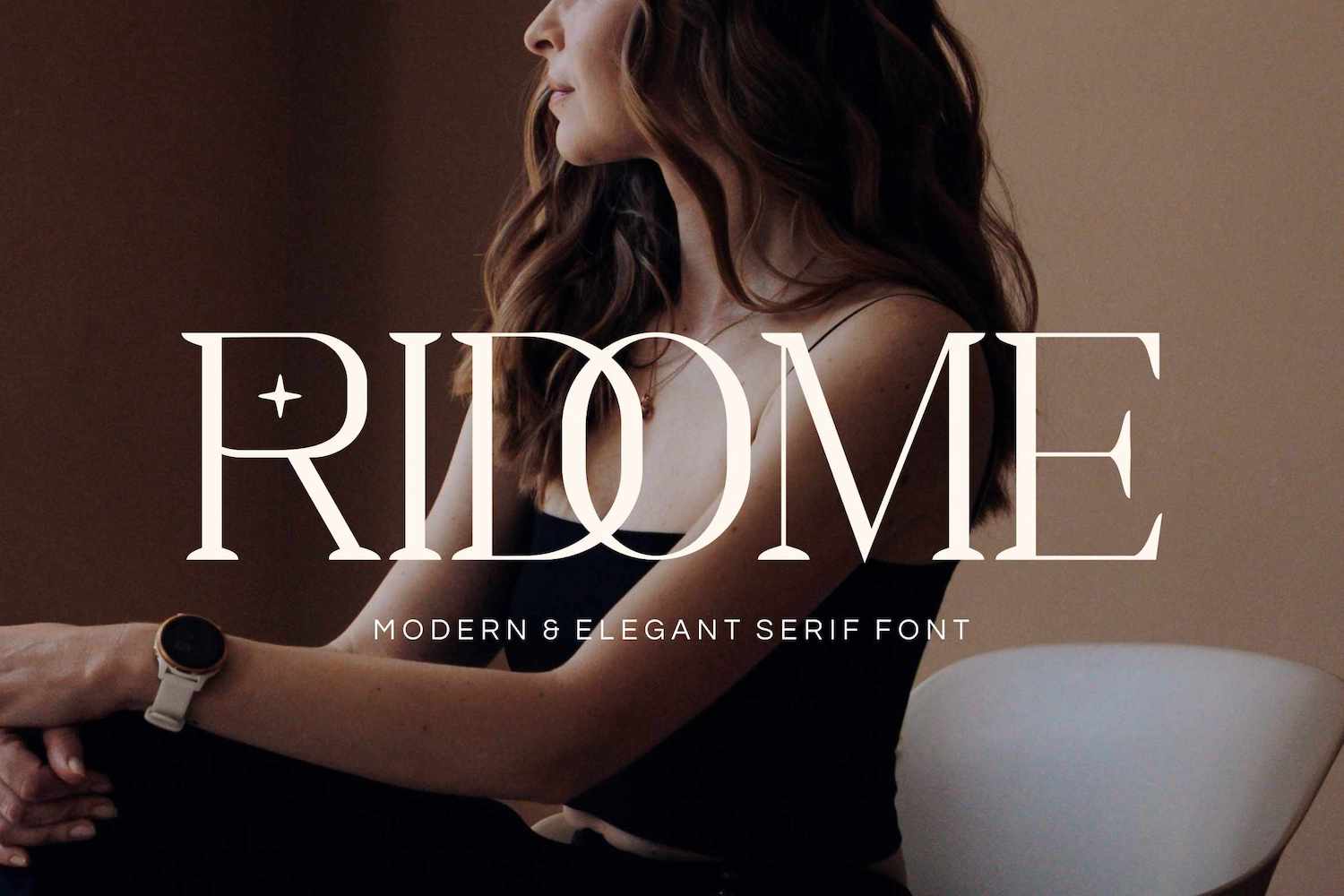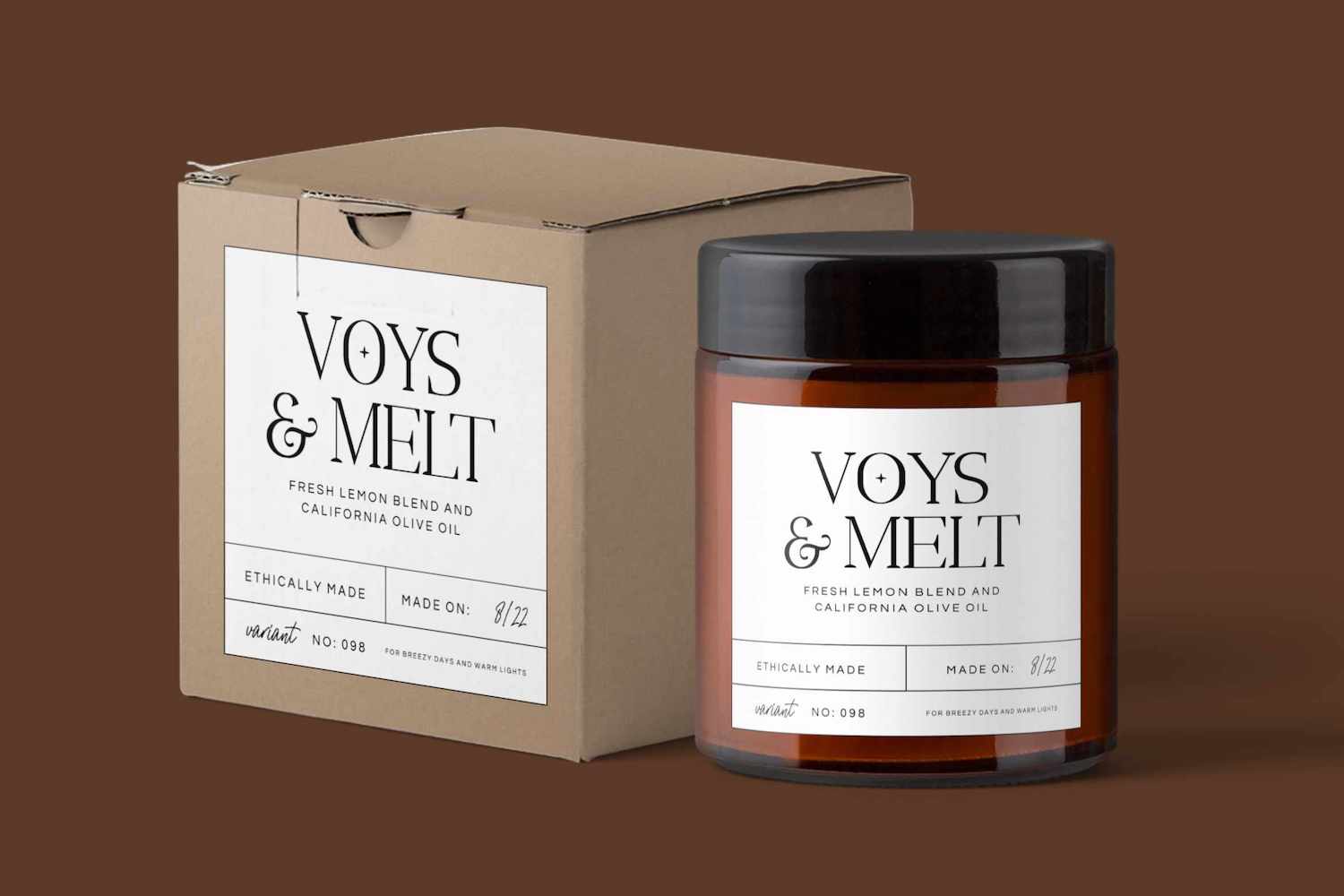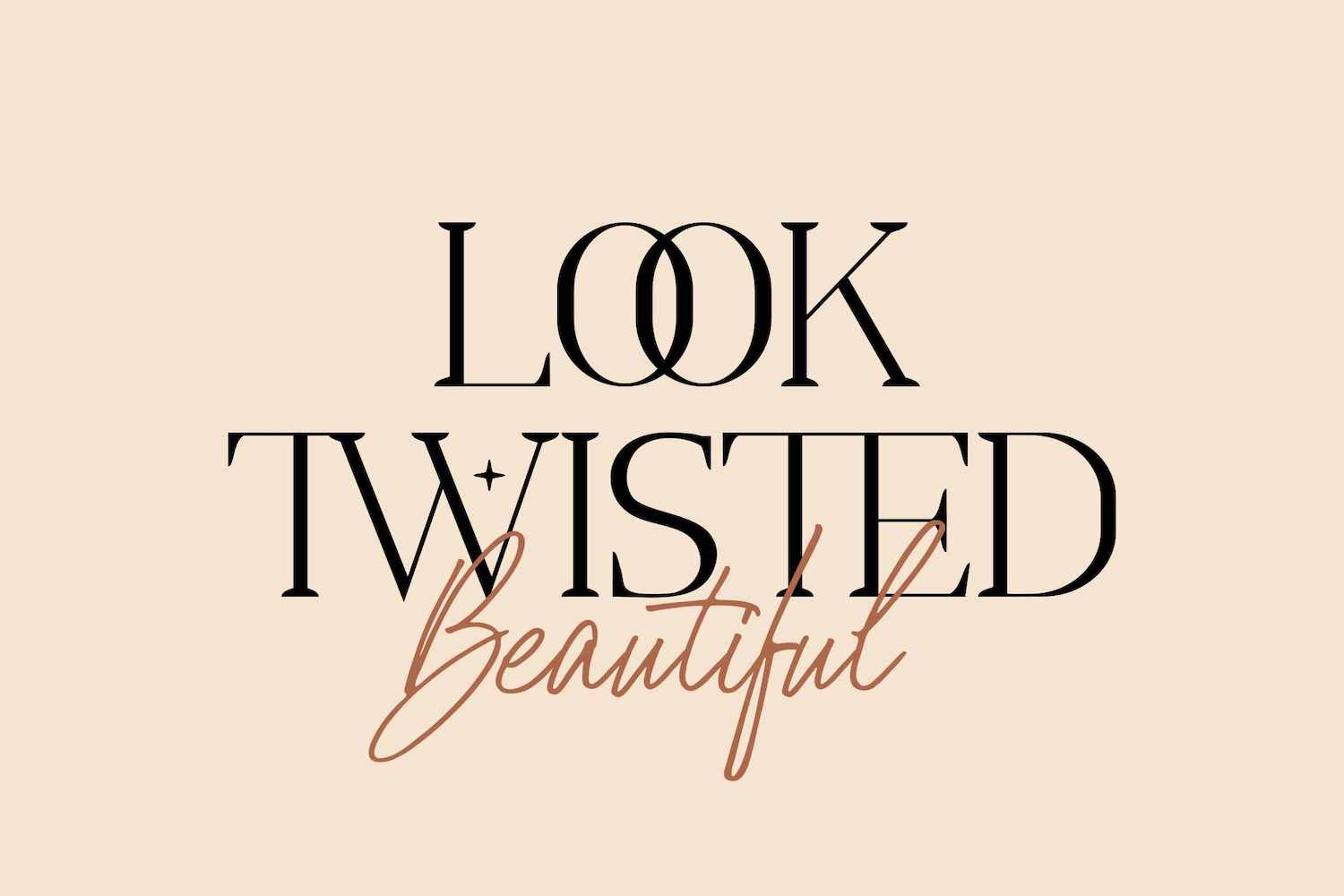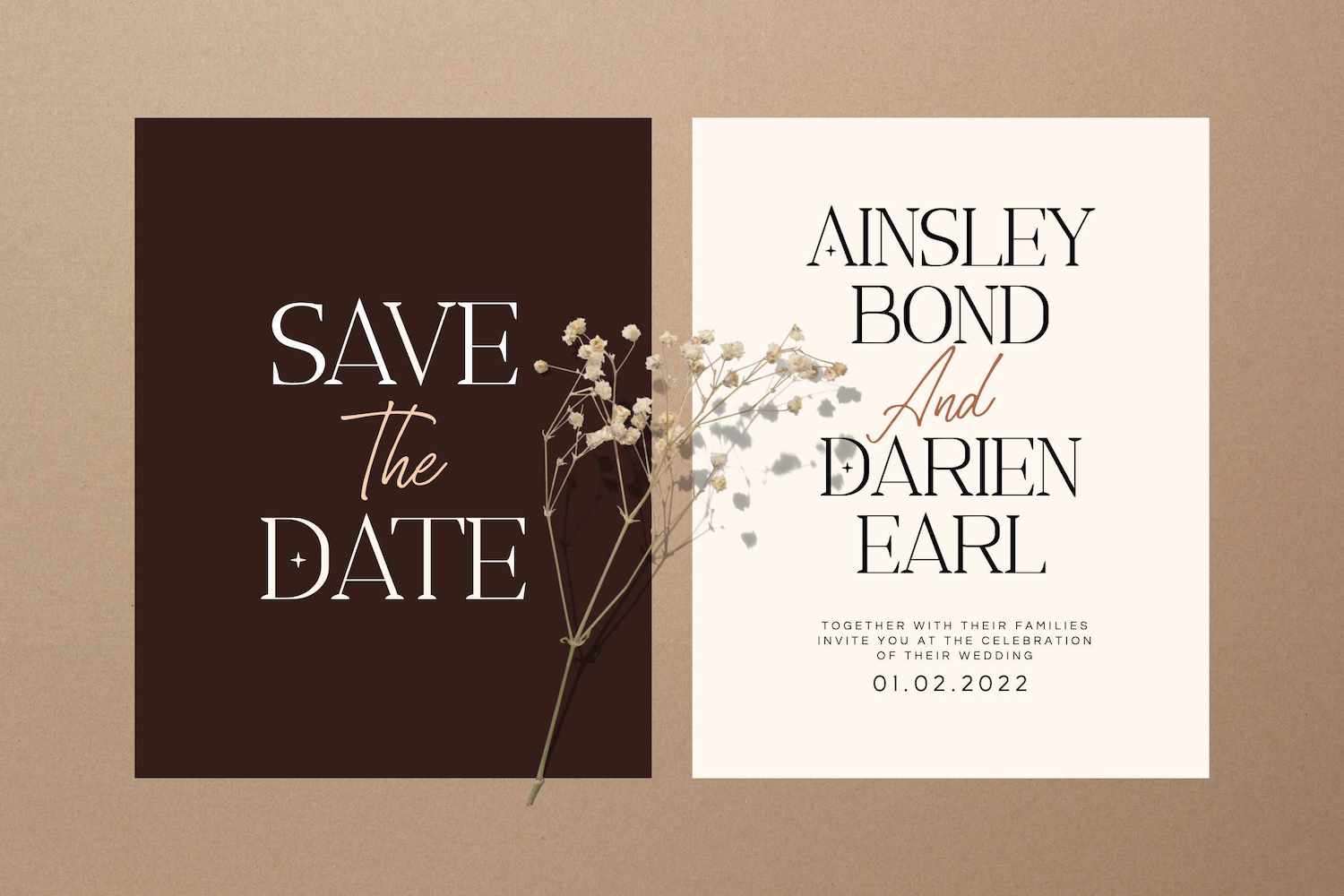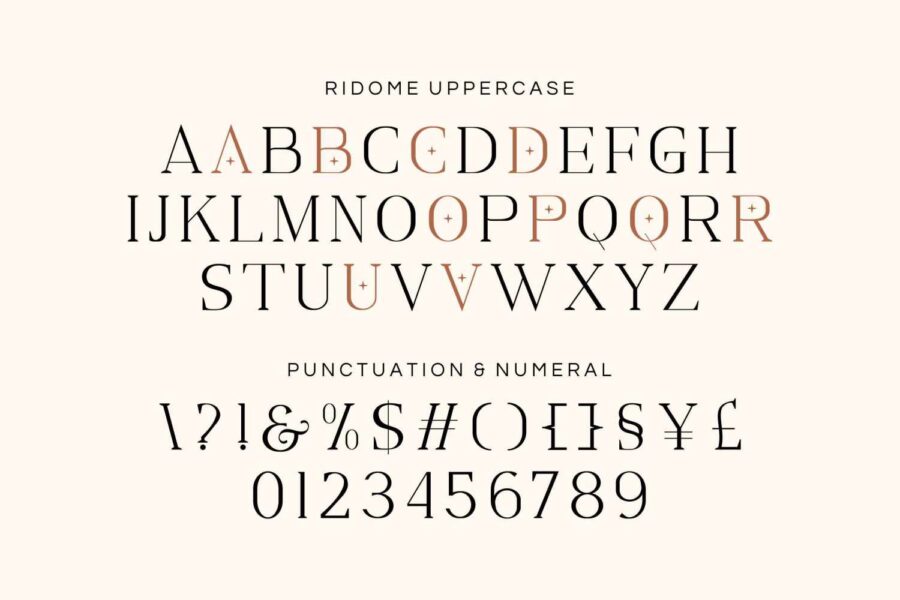
Introducing Ridome, a modern and elegant serif font that blends sophistication with artistic flair. This typeface features refined letterforms, luxurious ligatures, and distinctive stylistic alternates, perfect for fashion branding, editorial layouts, high-end packaging, and wedding invitations. With its tall, graceful proportions and delicate details like star accents and overlapping forms, Ridome adds a premium and contemporary feel to any project.
Designed with versatility in mind, Ridome includes a full set of uppercase and lowercase characters, ligatures, punctuation, numerals, and multilingual support. Whether used in logos, signage, or social media graphics, this typeface offers a timeless elegance and a touch of modern glamour to your designs.